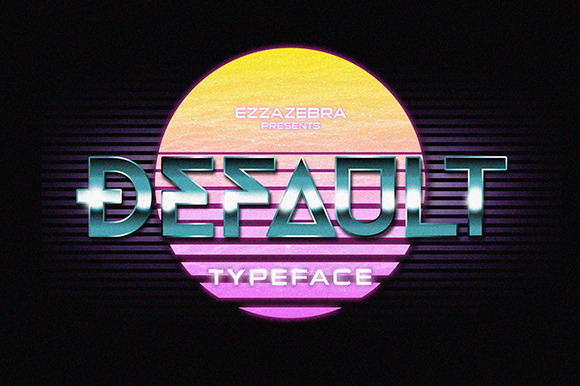
Default Typeface + 80s Style
Default Typeface is a modern sans serif font that I decided to represent by 80s style like in video game or vintage motion graphic. So functionally, the font can use for body text and display either with Regular or Alternates to make an unique title. The related theme of the sans serif is modern, techno, digital, constructive. It can be more maximal with the effect that I include in the package.